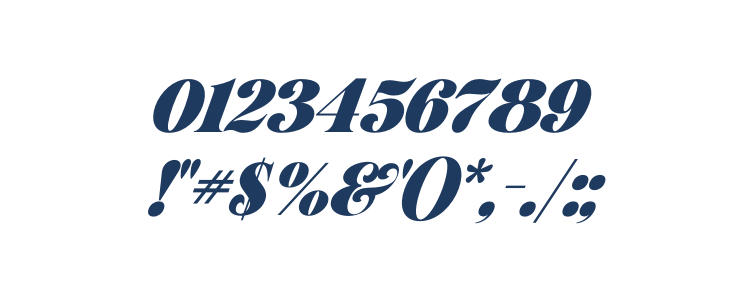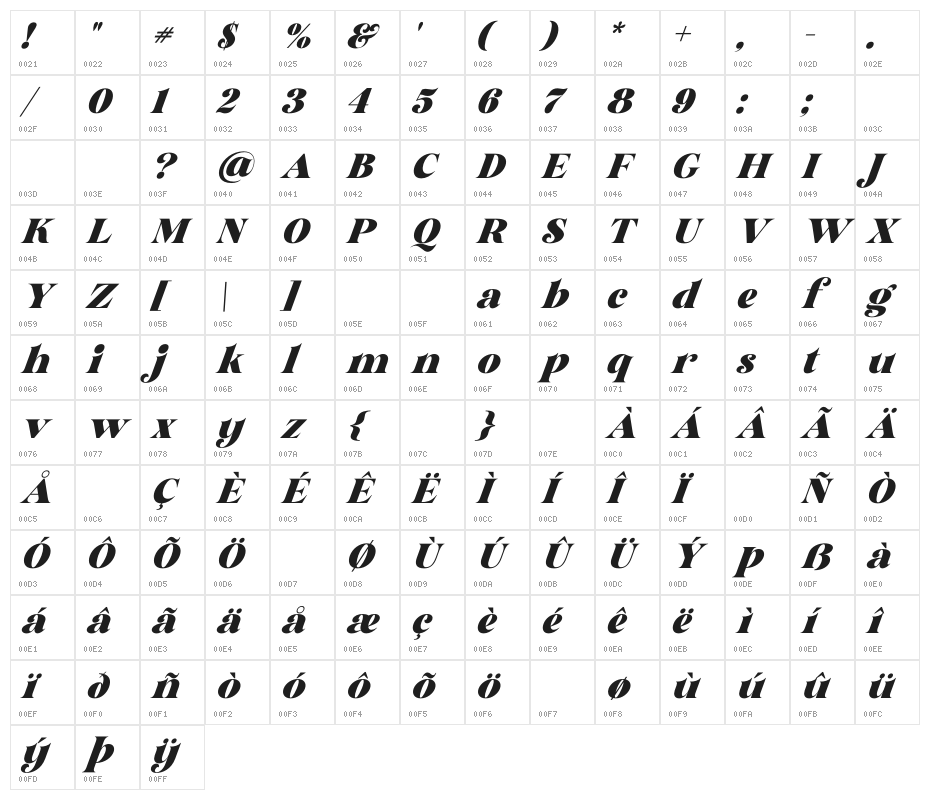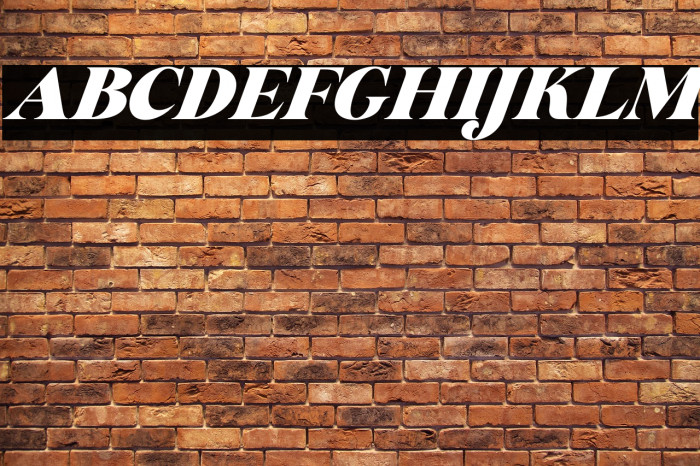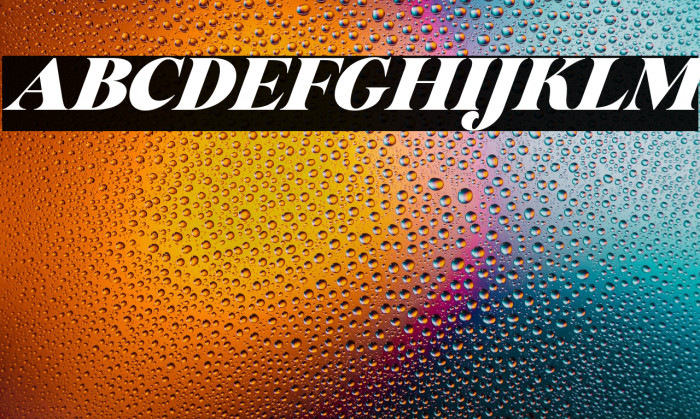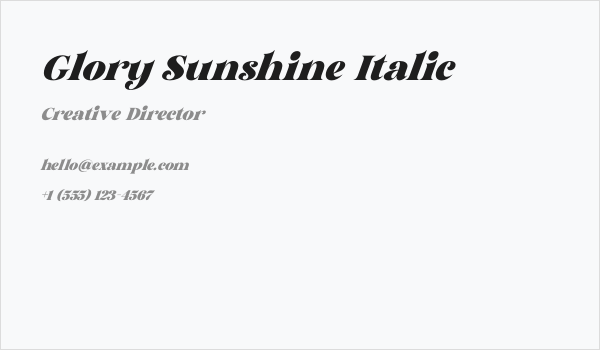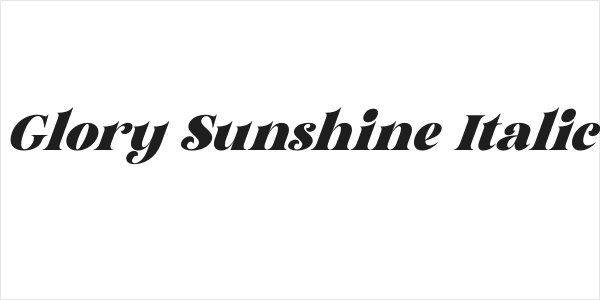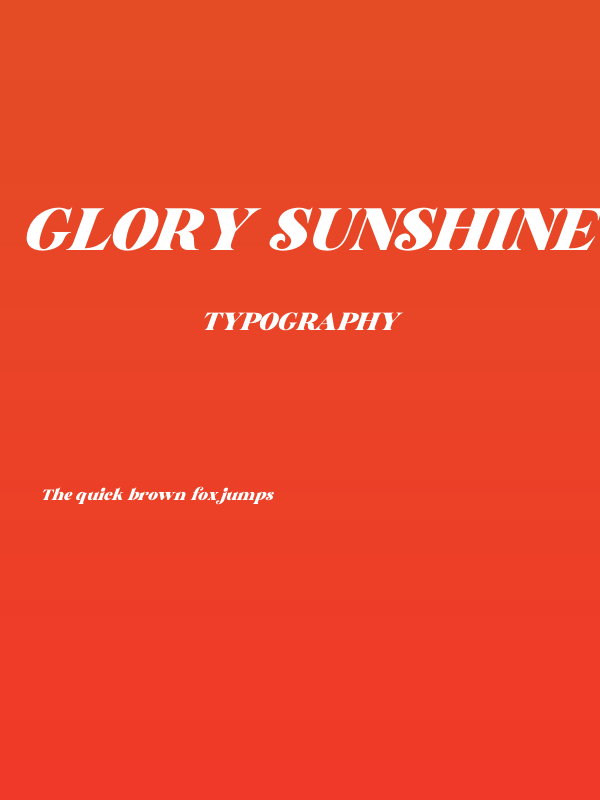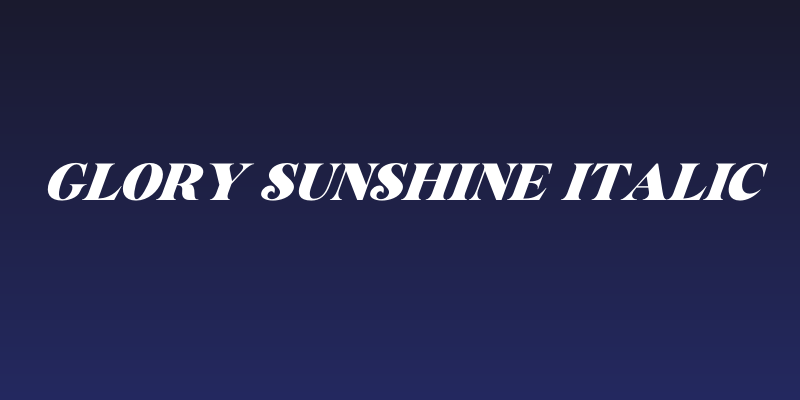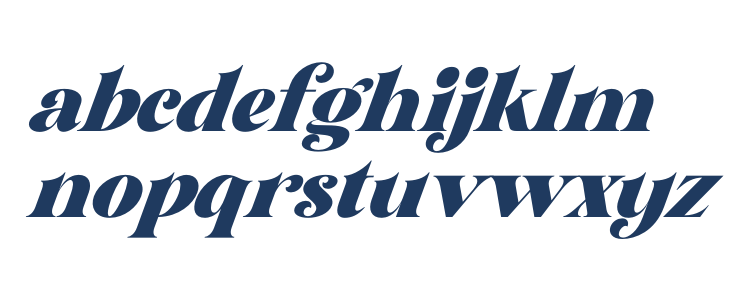
Glory Sunshine Italic Font
Glory Sunshine Italic Description
This font features an elegant and dynamic italic style, characterized by its flowing and cursive letterforms. The strokes are bold and confident, with a high contrast between thick and thin lines, giving it a dramatic and sophisticated appearance. The uppercase letters are particularly striking, with sweeping curves and sharp serifs that add a touch of flair. The lowercase letters maintain a cohesive flow, making it suitable for both display and text purposes. The numerals and special characters are designed with the same attention to detail, ensuring consistency throughout the typeface.